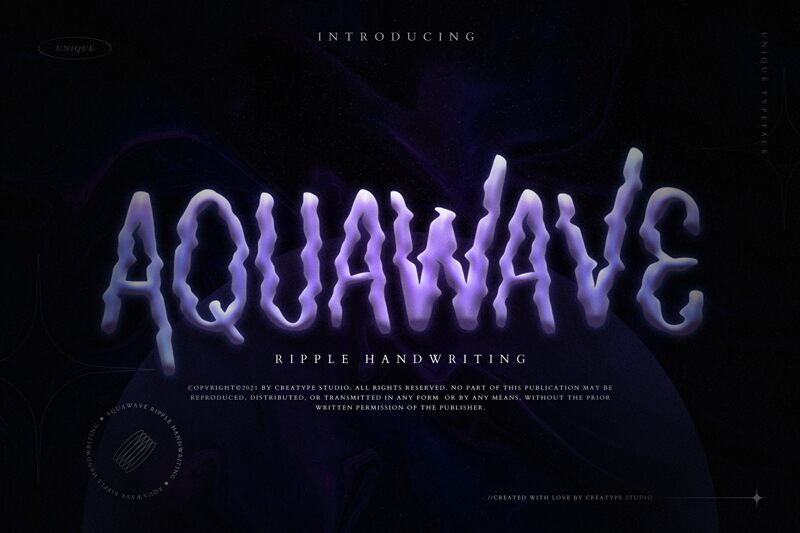
Aquawave, the semi-light, condensed display font by Creatype Studio, is perfect for creating unique and eye-catching designs. With its distorted style, Aquawave adds a touch of edginess to any project. Its condensed width makes it an ideal choice for creating attention-grabbing headlines or bold logos. Consider using Aquawave for a music festival poster or a surf brand's website banner. This versatile font can also be used for album covers or clothing designs that require a modern and distorted look. Add some personality to your next project with Aquawave!
Aquawave Regular